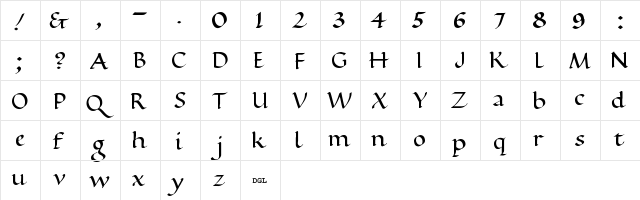
Ramsey Foundational - DGL Bold
Design Context for Ramsey Foundational - DGL Typeface
Ramsey Foundational - DGL is a composed and adaptable typeface that performs quietly and consistently across a wide range of design contexts. Its bold stroke weight gives it real presence on the page.